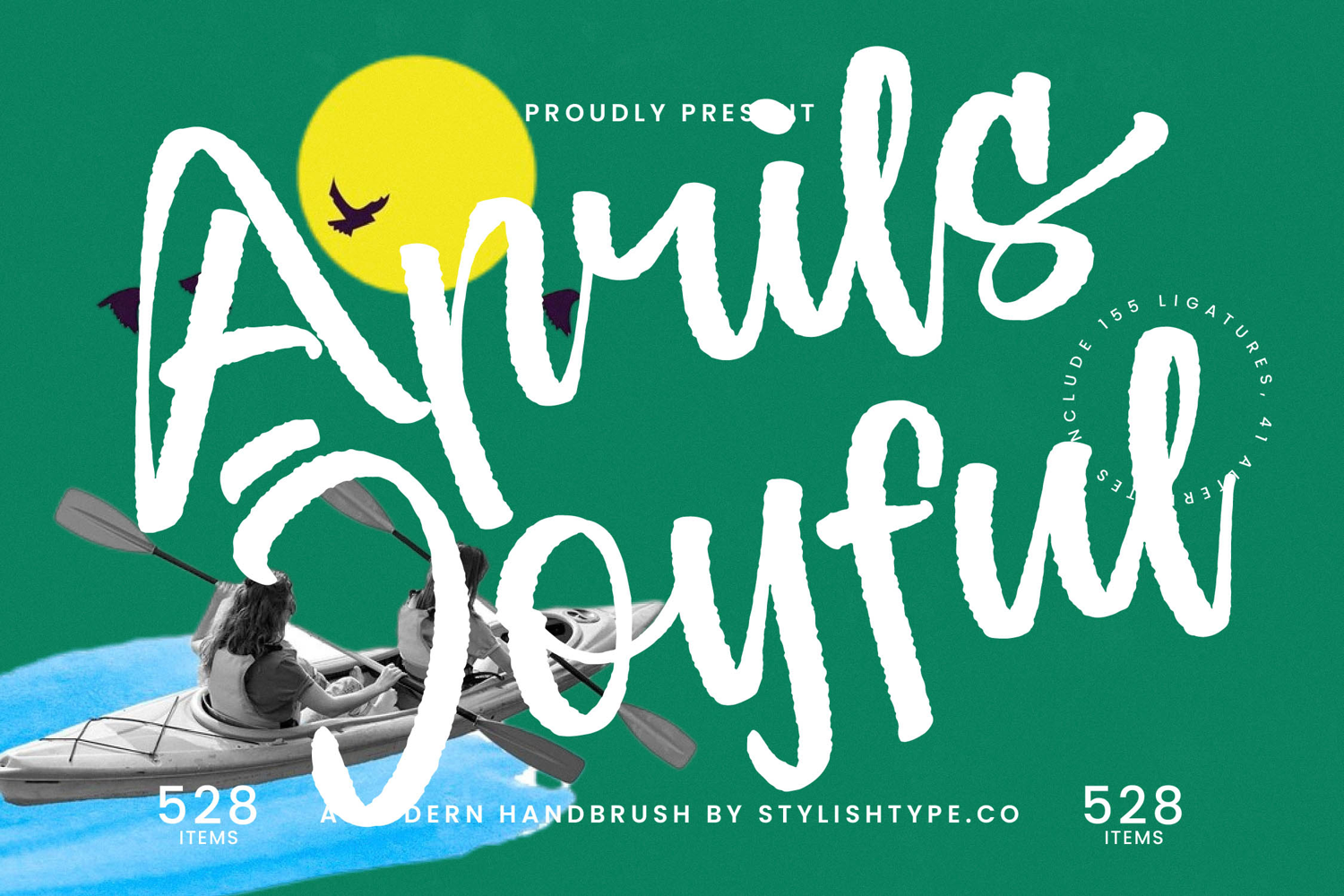
Aprils Joyful - Modern Handbrush Font
Aprils Joyful - Modern Handbrush Font. This impactful script captures the spontaneous flow and rugged texture of a thick, wet brushstroke, delivering immediate authenticity and bold personality to any design. Its dominant weight and expressive, looping ascenders ensure maximum visibility, making it impossible to overlook. It is the definitive choice for projects demanding high-energy and organic flair, instantly conveying a sense of hand-crafted quality.